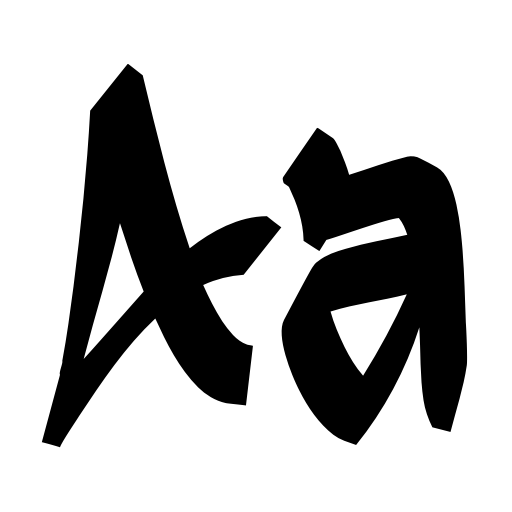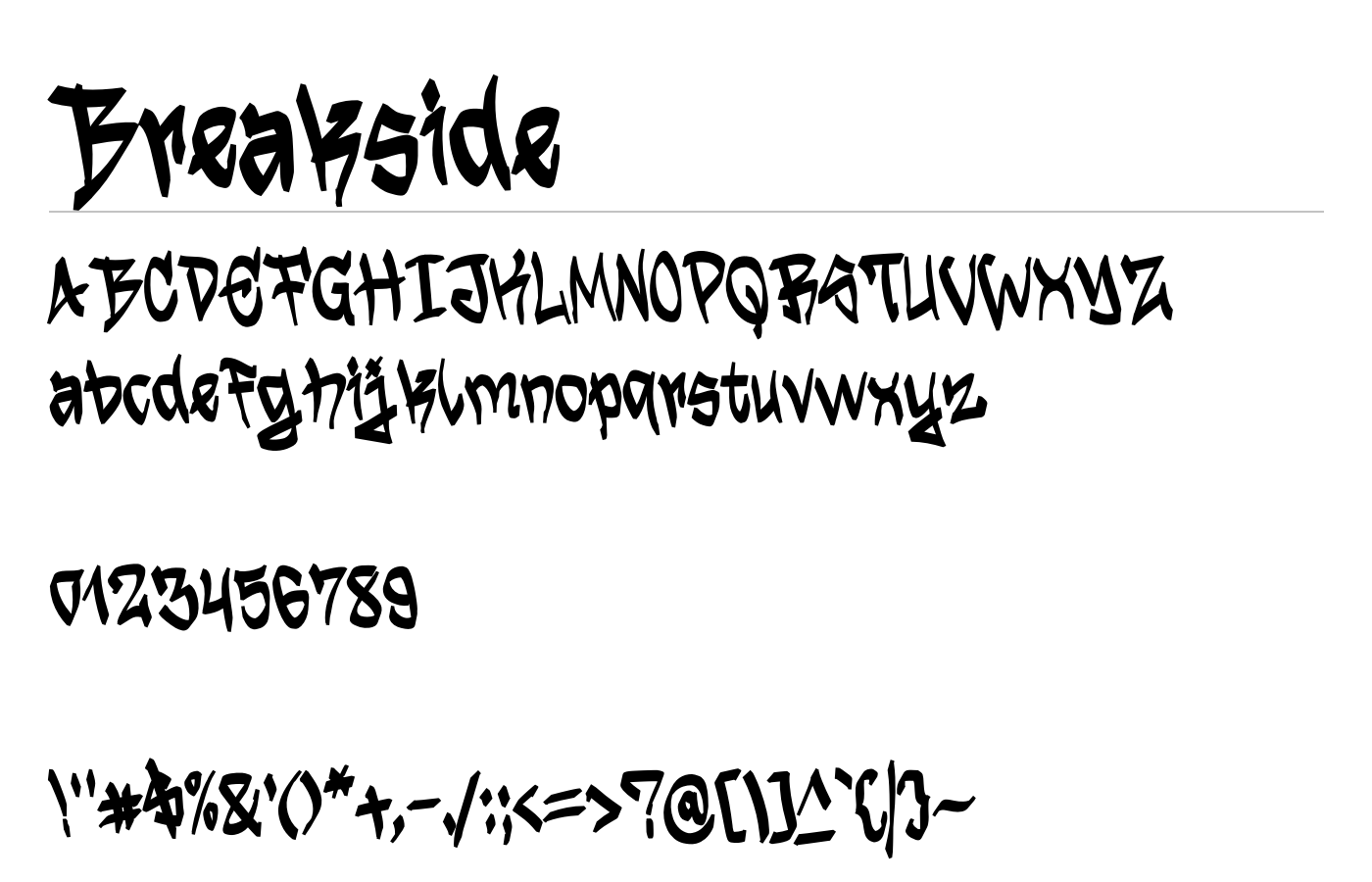
Breakside is a bold, edgy handwritten font with a striking graffiti-inspired style that features sharp, irregular strokes and a dynamic, angular feel. Its uneven letterforms and energetic character make it perfect for urban, creative, and youth-oriented designs seeking a raw and rebellious vibe. This font works best in headlines, logos, or posters where a strong, informal statement is desired.
Breakside Font
About Breakside Font